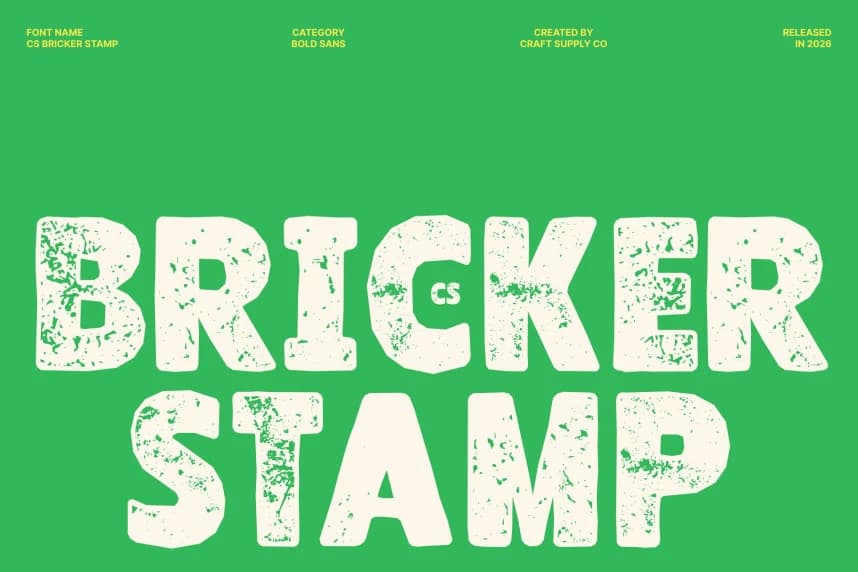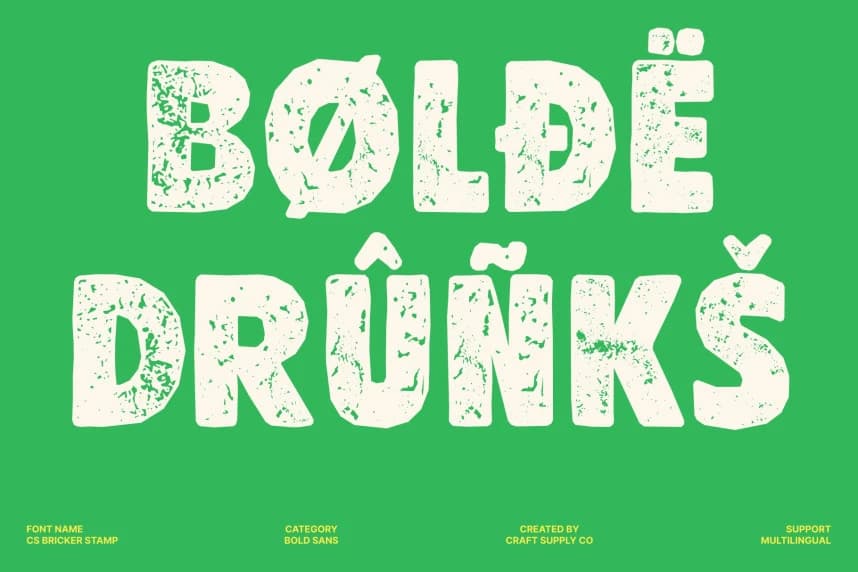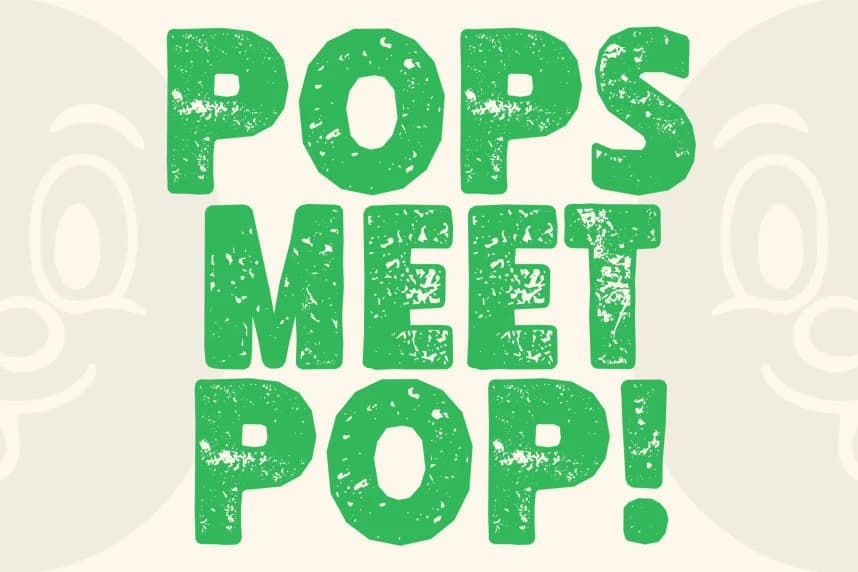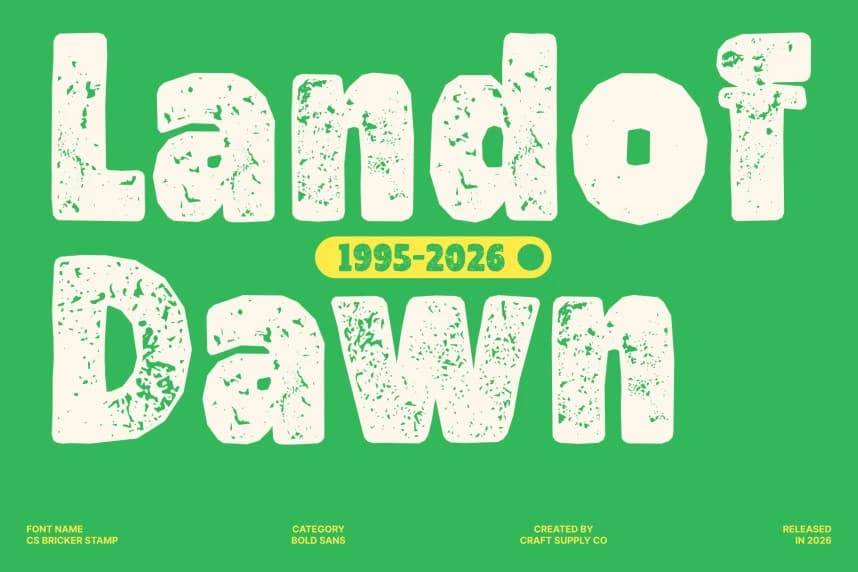
CS Bricker Stamp Font
CS Bricker Stamp Font – Futuristic Bold Font with Textured Y2K Energy A Bold Sans-Serif with Y2K Character. This is a modern sans-serif font that combines bold, funky, and futuristic forms with a distinctive stamped texture.